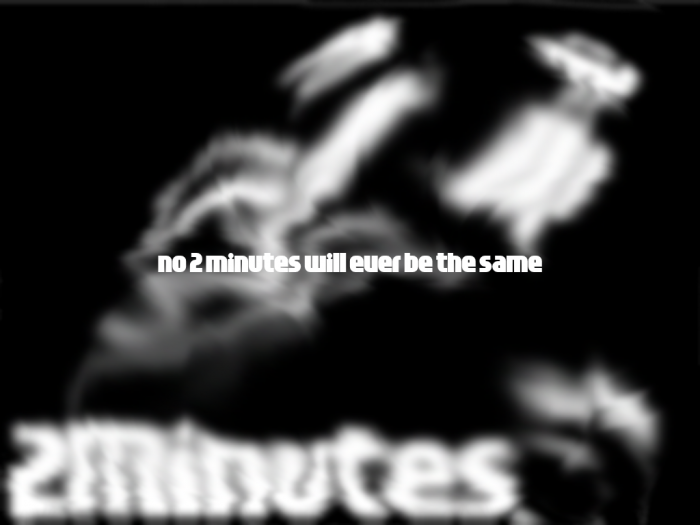
Nice entry mate, perhaps you wanna make number 3 slightly wider!
I'm with @Sed4 about the 3. Nice one, good luck.
this feels like the sequel of "cartographer